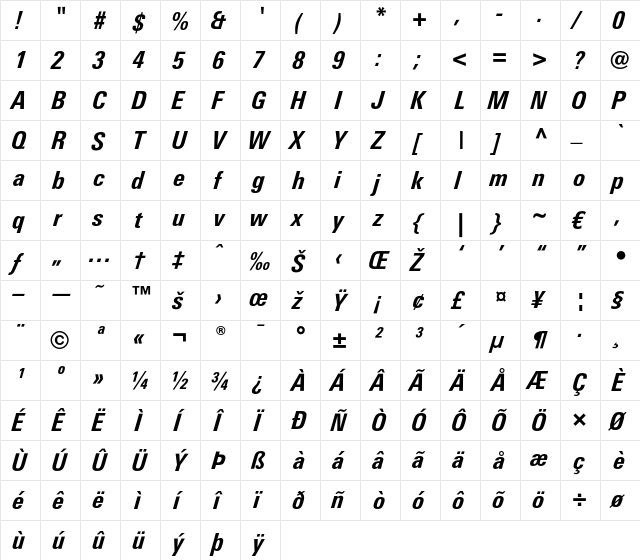
LTUnivers 721 CondHeavyIt
Design Context for LTUnivers Typeface
LTUnivers is a composed and adaptable typeface that performs quietly and consistently across a wide range of design contexts. The condensed width makes it efficient for tight spaces without sacrificing legibility.
Pro Tip: Use LTUnivers in both headline and body roles to test its range before committing to a single application.